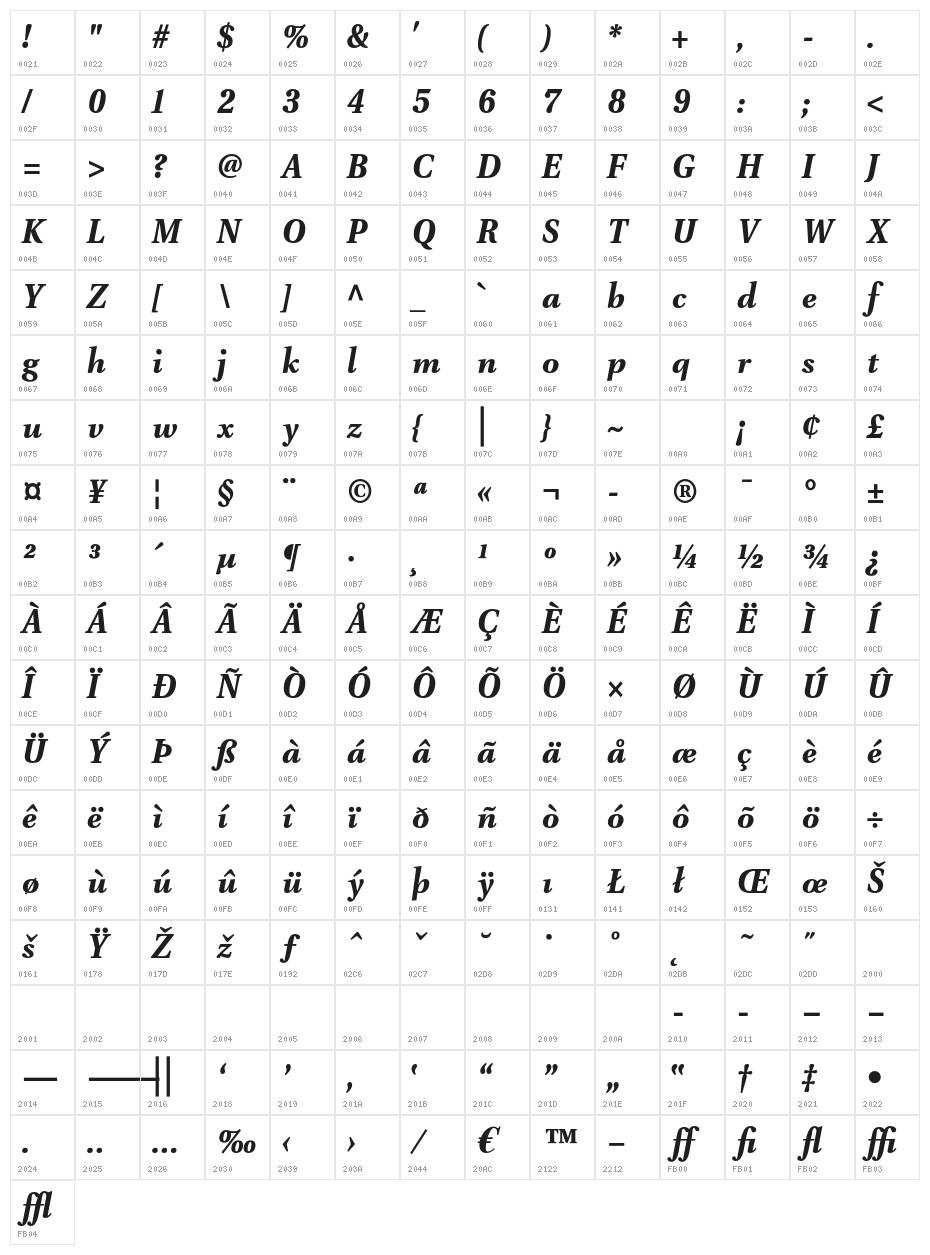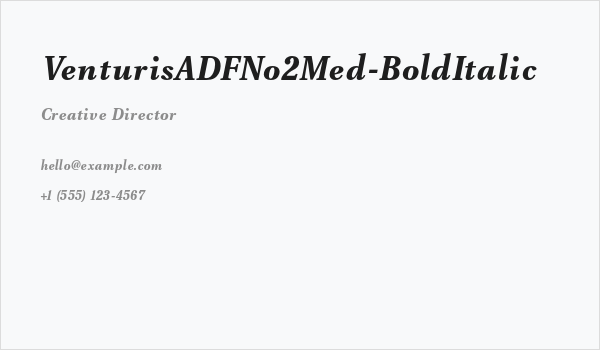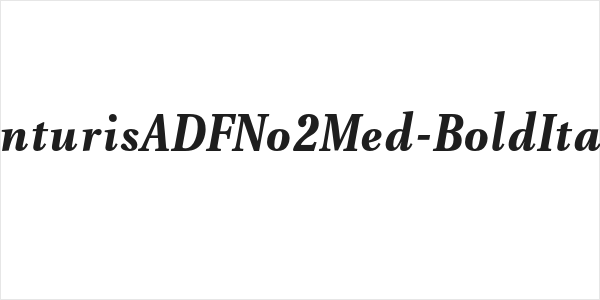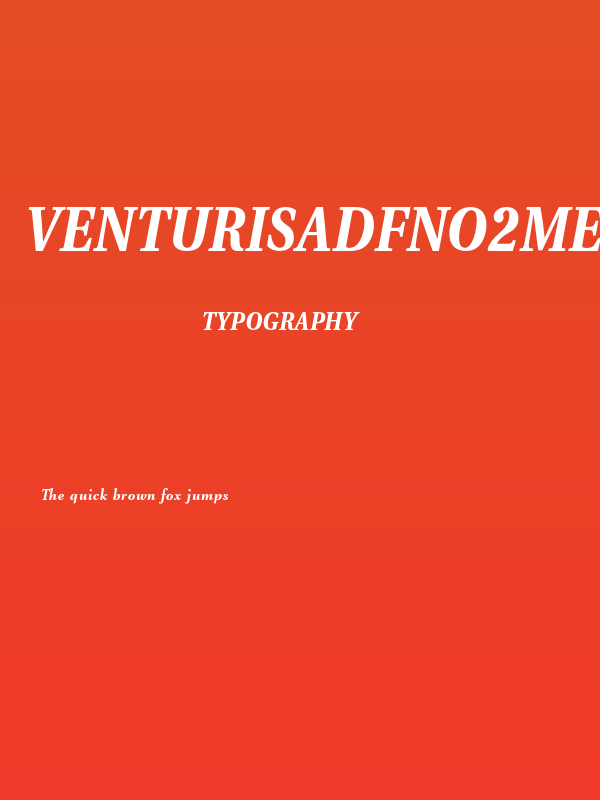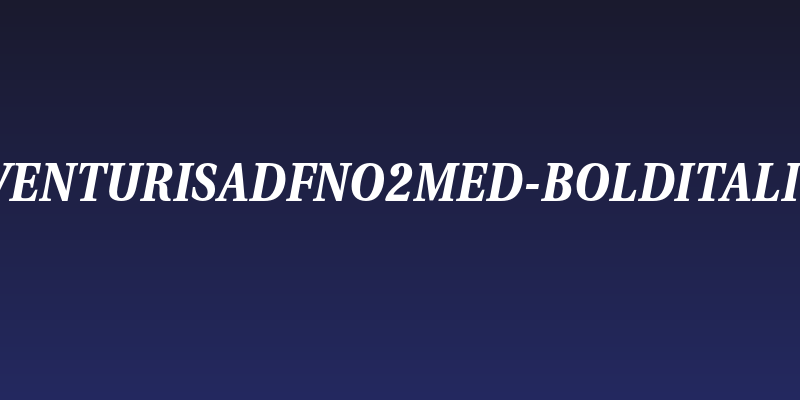
VenturisADFNo2Med-BoldItalic Font
VenturisADFNo2Med-BoldItalic Description
This font features a classic serif style with a bold and italicized appearance, giving it a strong yet elegant look. The serifs are pronounced, adding a touch of sophistication and tradition. The italic slant provides a dynamic and flowing feel, making it suitable for formal and creative applications. The characters are well-proportioned with a medium contrast in stroke thickness, ensuring readability while maintaining a stylish flair. The numerals and special characters are consistent with the overall design, offering versatility in various contexts.
| Proposed Projects | Ideal for book covers, editorial design, formal invitations, and branding projects that require a touch of elegance and tradition. |